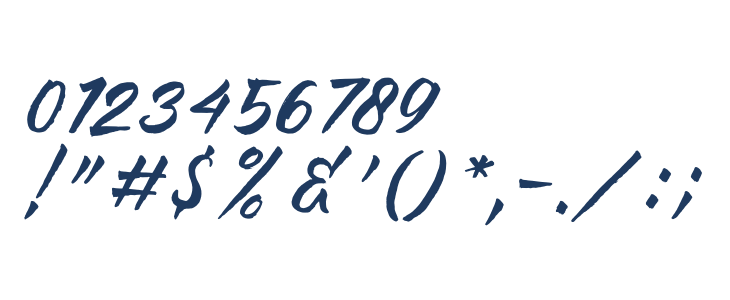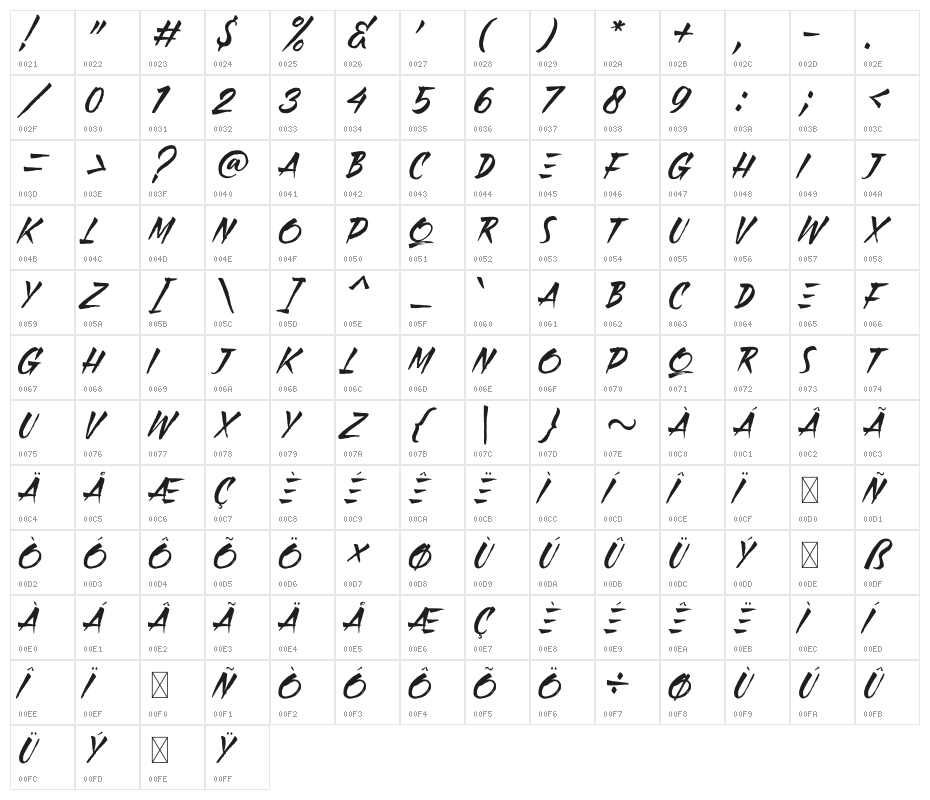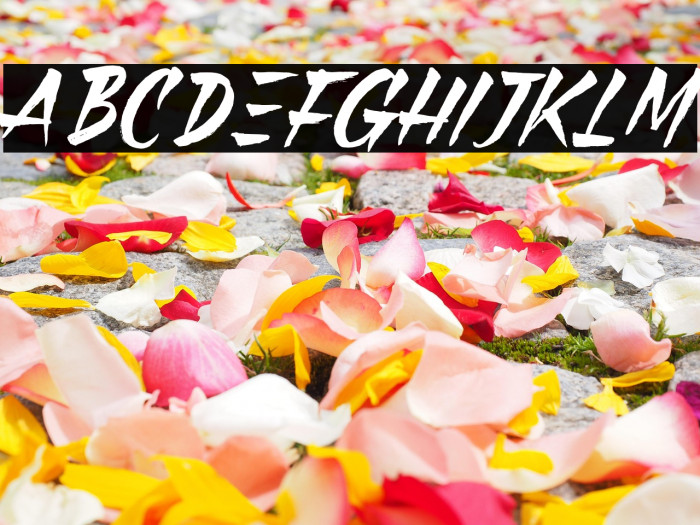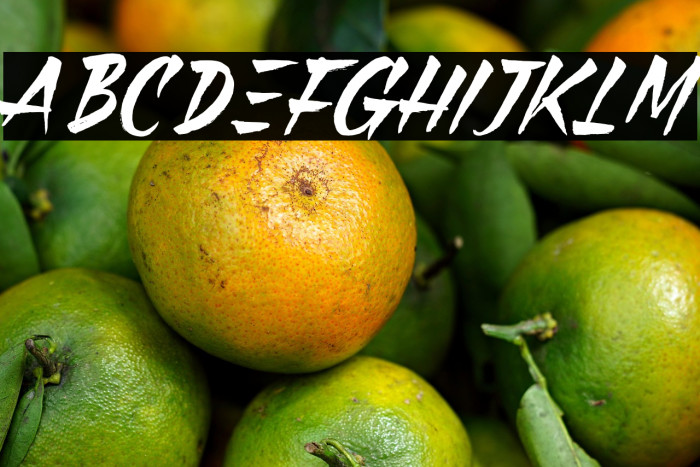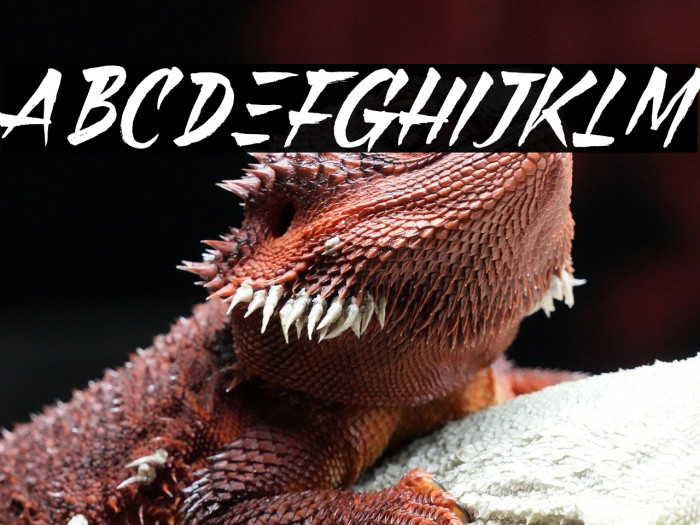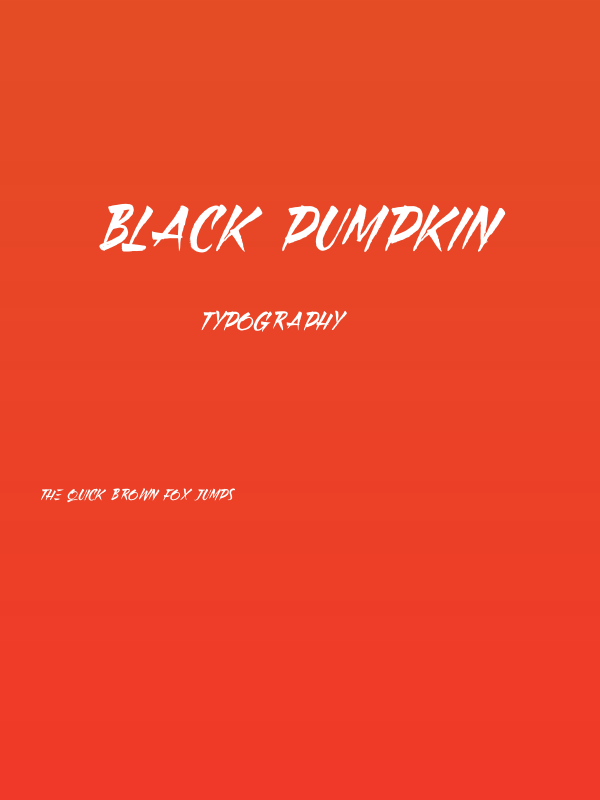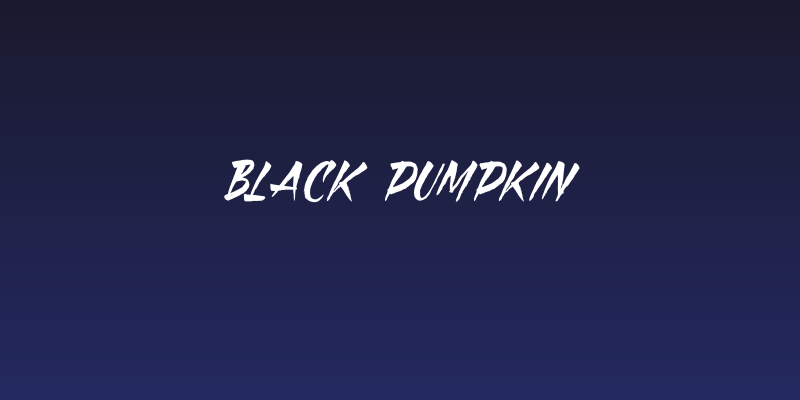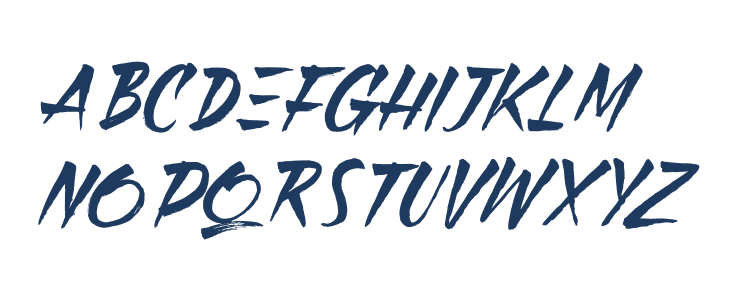
Black Pumpkin Font
Black Pumpkin Description
This font exudes a bold, dynamic energy with its brush-like strokes and expressive character forms. Each letter is crafted with a sense of movement, giving it a lively and artistic feel. The uppercase and lowercase letters maintain a consistent style, with sharp angles and fluid curves that suggest a handwritten quality. The numbers and special characters follow suit, offering a cohesive look across all glyphs. This font's unique style makes it stand out, perfect for projects that require a touch of creativity and flair.